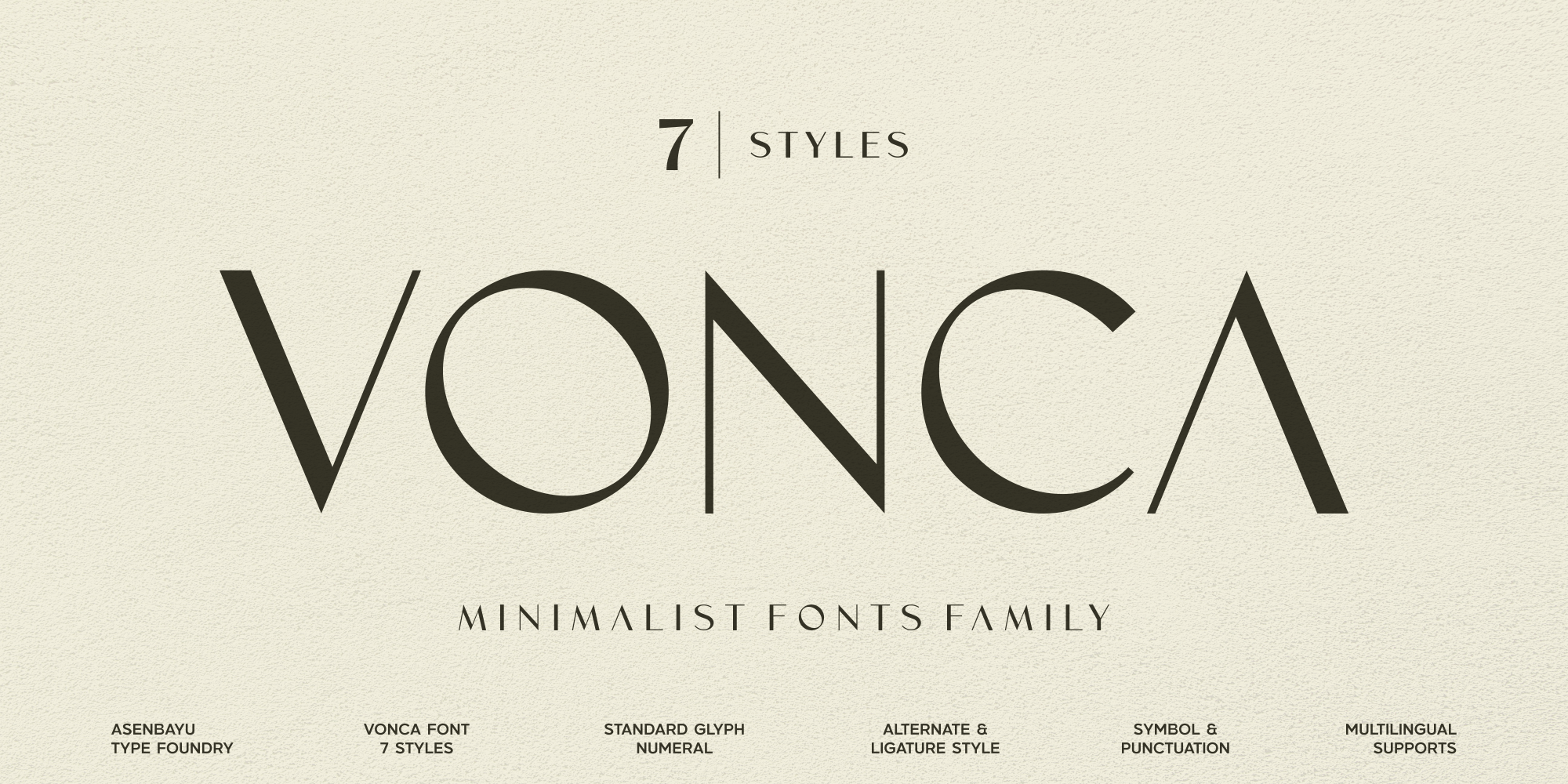
Vonca Font is perfect for luxury branding, high-end fashion magazines, sophisticated logos, premium product packaging, editorial headlines, architectural firm communications, jewelry advertising, upscale restaurant menus, and contemporary art gallery materials. This refined typeface elevates any project requiring elegant sophistication and modern minimalism.
What makes Vonca Font exciting is its perfect balance between contemporary minimalism and timeless elegance that speaks to discerning audiences. The font features clean geometric lines with subtle curves and precise spacing that creates visual harmony and sophisticated appeal. Its modern character and refined personality make it irresistible for luxury brands seeking to communicate exclusivity and premium quality.
The Vonca Font family includes multiple weights and contemporary styles: Light, Regular, Medium, Bold, Black, and Italic variations. Each weight maintains the font's sophisticated character while offering designers versatility for creating hierarchical typography and elegant brand systems across various media platforms.
Whether you're designing for luxury markets or premium services, Vonca Font Free Download offers designers a sophisticated, contemporary typeface solution. The font's refined aesthetics and modern styling make it ideal for high-end boutiques, luxury hotels, premium consultancies, and exclusive lifestyle brands. Its elegant presence ensures your message communicates sophistication and quality while maintaining perfect legibility. The comprehensive character set includes international language support and special ligatures, making it perfect for creating distinguished headlines and brand identities that resonate with affluent audiences seeking refined experiences and exceptional quality.